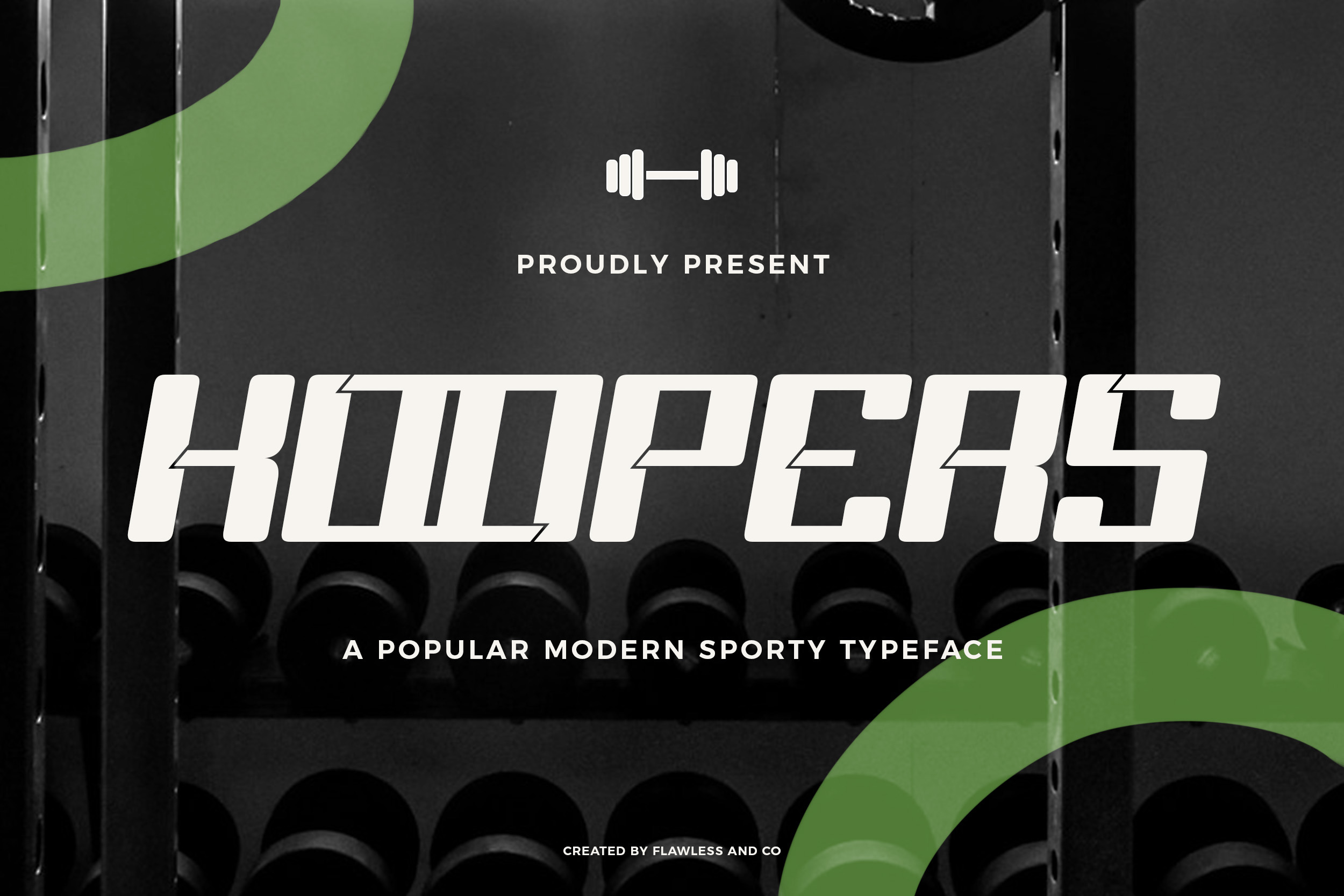
Koopers - Modern Sports Font
KOOPERS – Popular Modern Sporty Typeface
KOOPERS is a bold and modern sporty typeface designed to make your text stand out with confidence and energy. Featuring sharp edges, strong letterforms, and a clean geometric structure, this font is perfect for sports branding, athletic apparel, esports logos, posters, headlines, and more. Inspired by competitive spirit and speed, KOOPERS gives your designs a powerful presence with a contemporary edge. Whether you're designing for a team, tournament, or high-impact advertising, this typeface brings a dynamic and professional touch.
Ideal for:
- Sports & Fitness Branding
- Game Titles & Esports
- Posters & Magazine Covers
- Event Promotions
- Modern Logos & Apparel
Bring intensity and modern flair to your projects with KOOPERS – the ultimate sporty display font.
Who Should Use KOOPERS?
KOOPERS is made for bold creators, energetic brands, and designers who want to channel speed, strength, and modern edge. This font is perfect for:
- Fitness brands & activewear labels needing a sharp, dynamic font for logos, product packaging, or campaigns.
- Sports teams & events that demand bold, impactful typefaces for posters, jerseys, and sponsorship graphics.
- Gaming and esports creators wanting a futuristic, aggressive vibe for logos, streams, and digital branding.
- Streetwear & urban fashion designers aiming for a tough, athletic look across merch and branding.
- Content creators & influencers crafting high-energy, scroll-stopping visuals for social media.
- Tech or performance-driven brands who want typography that screams modern, fast, and powerful.
Whether you're designing for apparel, branding, or digital content, KOOPERS delivers a strong, modern presence with sporty flair. It’s the go-to font for creators who thrive on movement, momentum, and visual punch.
A Must-Have Font for Sports Brand and Logo Creators
KOOPERS is the ultimate typeface for designers crafting bold logos, athletic branding, and high-impact visuals. Its dynamic, angular style makes it perfect for sports teams, gym apparel, energy drinks, and anything that needs to shout power, speed, and confidence. Whether you're building a modern fitness brand or designing a championship-level logo, KOOPERS brings the strength and precision your project demands.
Why Choose KOOPERS for Sports Brand and Logo Projects?
KOOPERS is built for boldness. With its strong lines, sharp edges, and athletic energy, it captures the power and motion essential to any sports brand. Whether you’re creating a logo for a fitness studio, an energy drink, a streetwear label, or a professional team, KOOPERS delivers a modern, confident, and competitive look.
- Instant Impact – Its geometric structure and angled cuts demand attention, making logos unforgettable.
- Modern & Sporty – The perfect blend of speed and style, ideal for brands focused on performance and energy.
- Versatile Use – Great for logos, merchandise, headlines, packaging, posters, and digital graphics.
- Professional Appeal – Designed with clean consistency, it gives your project a polished, premium feel.
- If your goal is to motivate, energize, and lead, KOOPERS is the typeface that puts your brand in motion.